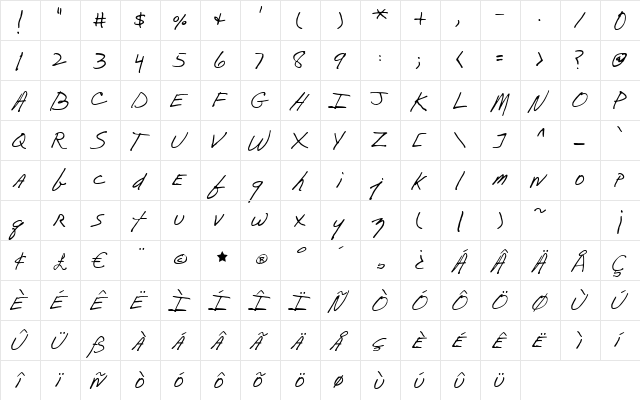
GFYAuntSusan Regular Font Preview
GFYAuntSusan Regular
GFYAuntSusan Regular Font Details
Design Context for GFYAuntSusan Typeface
GFYAuntSusan takes a measured approach to typography — its balanced proportions and neutral character make it a reliable workhorse for both digital and print work.